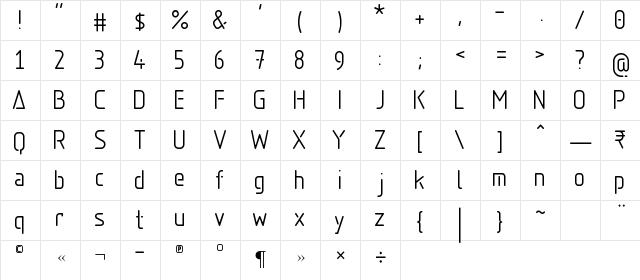
Aadhunik Light Regular
| Designer | Hareesh Seela |
Design Context for Aadhunik Light Typeface
Aadhunik Light is a composed and adaptable typeface that performs quietly and consistently across a wide range of design contexts. Its slender proportions lend an understated elegance to any composition.